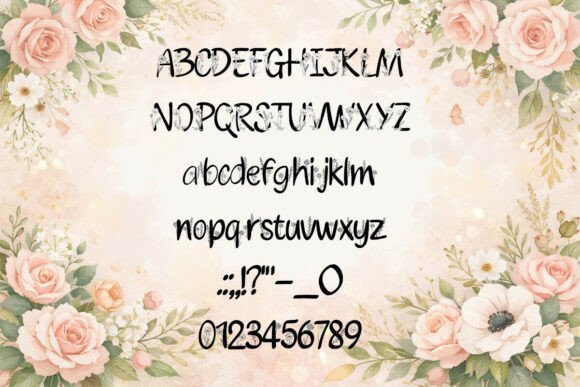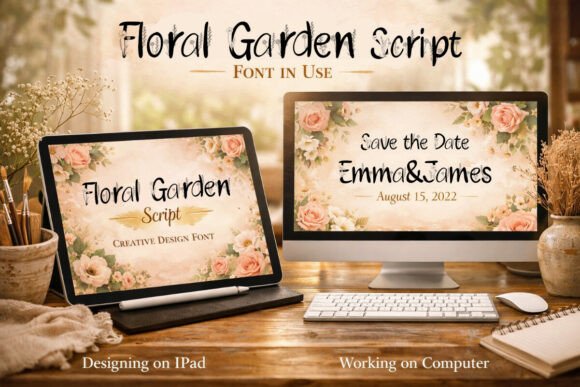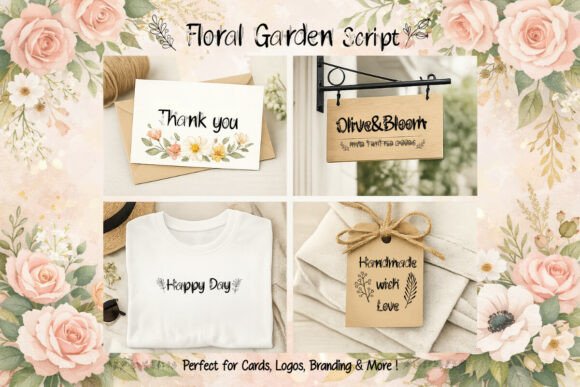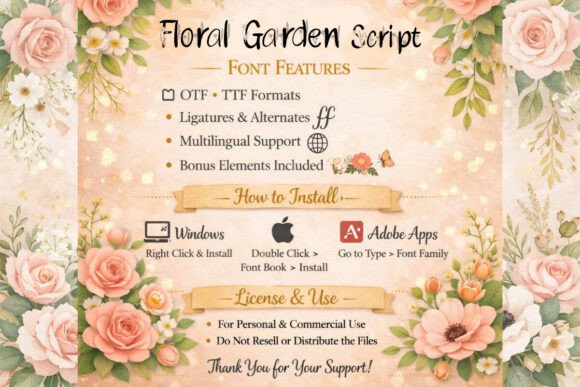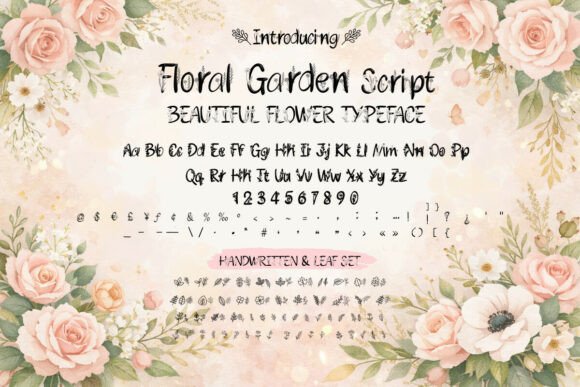
Introducing Floral Garden Font: Elevate Your Designs with Nature-Inspired Elegance
Are you a designer or crafter looking to add a touch of romance and whimsy to your creations? Look no further than the Floral Garden Font, a beautiful handwritten script inspired by the delicate curves of flowers and leaves. This stunning font is perfect for a variety of projects, from wedding invitations and logos to greeting cards and creative endeavors that require a dash of elegance and natural charm.
The Inspiration Behind Floral Garden Font
The Floral Garden Font is a labor of love, carefully crafted to evoke the soft, flowing lines of nature. Each letter is a work of art, meticulously designed to resemble the intricate patterns found in flowers and leaves. The result is a font that exudes warmth, sophistication, and a deep connection to the natural world.
Perfect for Romantic and Whimsical Designs
Whether you’re designing a wedding invitation, a logo, or a greeting card, the Floral Garden Font is the perfect choice. Its elegant, cursive script adds a touch of romance and whimsy to any design, making it ideal for projects that require a personal and heartfelt touch. Imagine pairing this beautiful font with floral illustrations or watercolor textures to create a truly unique and eye-catching design.
Key Features of Floral Garden Font
- Handwritten script: Each letter is carefully crafted to resemble a handwritten script, giving your designs a personal and intimate feel.
- Floral inspiration: The font’s delicate curves and lines are inspired by flowers and leaves, adding a touch of natural elegance to your designs.
- Romantic and whimsical: The Floral Garden Font is perfect for projects that require a romantic and whimsical touch, such as wedding invitations and greeting cards.
- Versatile: This font can be used for a variety of design projects, from logos and branding to creative endeavors like scrapbooking and crafting.
Tips for Using Floral Garden Font in Your Designs
To get the most out of the Floral Garden Font, here are a few tips to keep in mind:
- Pair with floral illustrations: Combine the Floral Garden Font with beautiful floral illustrations to create a stunning and cohesive design.
- Experiment with colors: Try pairing the font with soft, pastel colors or rich, bold hues to add depth and contrast to your design.
- Use for headlines and titles: The Floral Garden Font is perfect for headlines and titles, adding a touch of elegance and sophistication to your designs.
- Mix with other fonts: Don’t be afraid to mix the Floral Garden Font with other fonts to create a unique and eye-catching design.